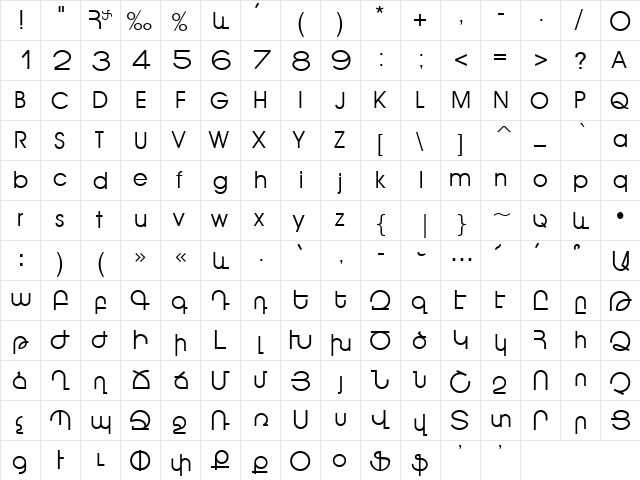
ArTarumianKamar Regular
Design Context for ArTarumianKamar Typeface
ArTarumianKamar is a composed and adaptable typeface that performs quietly and consistently across a wide range of design contexts.